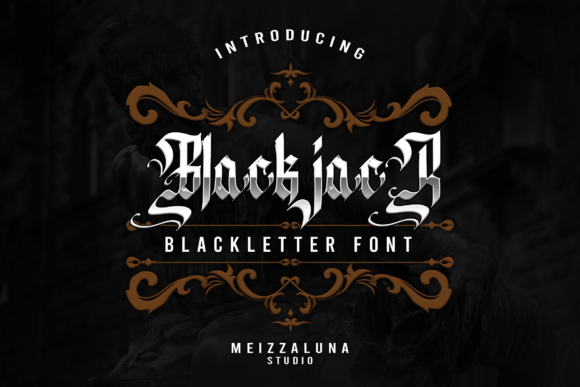
The Elegance of Black Jack: A Timeless Blackletter Font
I’ll never forget the design project that led me to discover the Black Jack Font. I was working on a luxury product packaging design, aiming to create a bold yet sophisticated look. As I scrolled through font libraries, I stumbled upon Black Jack – an elegant and classic blackletter font that instantly caught my attention. Its stylish features and bold appearance made it the perfect fit for my project. In this article, I’ll share my experience with Black Jack, its features, and how to make the most of this beautiful font.
An Honest Review of Black Jack Font
• ✨ Elegant and classic blackletter design
• ✅ Highly legible, even in bold and large sizes
• 💼 Versatile and suitable for various design projects, from product packaging to branding
• 🎨 Stylish features, including OpenType features and glyphs, offer creative freedom
While Black Jack is an excellent font, there are a few minor considerations:
• 🤔 Limited use in body text due to its bold nature; it’s best suited for headings and titles
• ⚠️ Some characters may not work well in very small sizes; optimal use is above 12-14 points
The Backstory of Black Jack Font
The Black Jack Font was designed with inspiration from classic blackletter typefaces, combined with a modern twist. The designer aimed to create a font that exudes elegance and sophistication while maintaining readability. The result is a versatile font suitable for a wide range of design projects.
Q: What type of projects is Black Jack Font best suited for?
A: Black Jack Font is ideal for projects requiring bold and elegant typography, such as product packaging, branding, and advertising.
Q: Is Black Jack Font suitable for body text?
A: Due to its bold nature, Black Jack Font is best used for headings and titles. For body text, consider a more traditional and readable font.